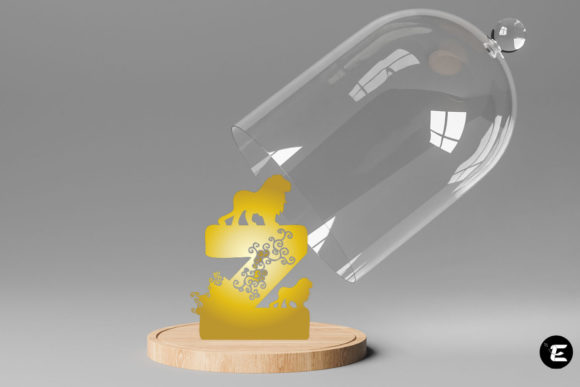
Unleash Your Creativity with Animal Font: A Fun and Unique Decorative Font
Are you a designer, crafter, or DIY enthusiast looking for a font that can add a touch of playfulness and personality to your creations? Look no further than Animal Font, a fun and uniquely designed decorative font that’s sure to elevate your fonts’ library. In this article, we’ll dive into the features and benefits of Animal Font, and explore how it can be used to take your designs to the next level.
What is Animal Font?
Animal Font is a decorative font that’s designed to bring a sense of fun and whimsy to your designs. With its unique and quirky style, this font is perfect for adding a touch of personality to any project. Whether you’re working on a logo, a poster, a craft project, or a digital design, Animal Font is sure to make your creation stand out.
Key Features of Animal Font
- Unique and quirky design: Animal Font has a one-of-a-kind design that’s sure to grab attention and add a touch of personality to your designs.
- Highly versatile: This font can be used on a wide range of projects, from logos and posters to craft projects and digital designs.
- Easy to read: Despite its decorative style, Animal Font is easy to read and understand, making it perfect for use on a variety of projects.
- Scalable: Animal Font is designed to be scalable, so you can use it on projects of all sizes, from business cards to billboards.
Benefits of Using Animal Font
So why should you choose Animal Font for your next project? Here are just a few benefits of using this fun and unique font:
- Adds personality to your designs: Animal Font is a great way to add a touch of personality and whimsy to your designs, making them more engaging and memorable.
- Stand out from the crowd: With its unique design, Animal Font is sure to make your designs stand out from the crowd and grab attention.
- Perfect for creative projects: Whether you’re working on a craft project, a DIY project, or a digital design, Animal Font is a great choice.
How to Use Animal Font
So how can you use Animal Font in your designs? Here are a few ideas to get you started:
- Logos and branding: Use Animal Font to create a fun and unique logo that’s sure to grab attention.
- Posters and flyers: Add a touch of personality to your posters and flyers with Animal Font.
- Craft projects: Use Animal Font to add a personal touch to your craft projects, such as scrapbooking, card making, and more.
- Digital designs: Add a touch of whimsy to your digital designs, such as social media graphics, blog posts, and more.
Tips and Tricks for Getting the Most Out of Animal Font
Here are a few tips and tricks for getting the most out of Animal Font:
- Experiment with different colors: Animal Font looks great in a variety of colors, so don’t be afraid to experiment and find the perfect color for your design.
- Use it sparingly: While Animal Font is a fun and unique font, it can be overwhelming if used too much. Use it sparingly to add a touch of personality to your designs.
- Pair it with other fonts: Animal Font pairs well with a variety of other fonts, so don’t be afraid to experiment and find the perfect combination for your design.
In conclusion, Animal Font is a fun and uniquely designed decorative font that’s sure to elevate your fonts’ library. With its quirky style, high versatility, and ease of use, this font is perfect for designers, crafters, and DIY enthusiasts of all skill levels. Whether you’re working on a logo, a poster, a craft project, or a digital design, Animal Font is a great choice. So why wait? Download Animal Font today and start adding a touch of personality to your designs!